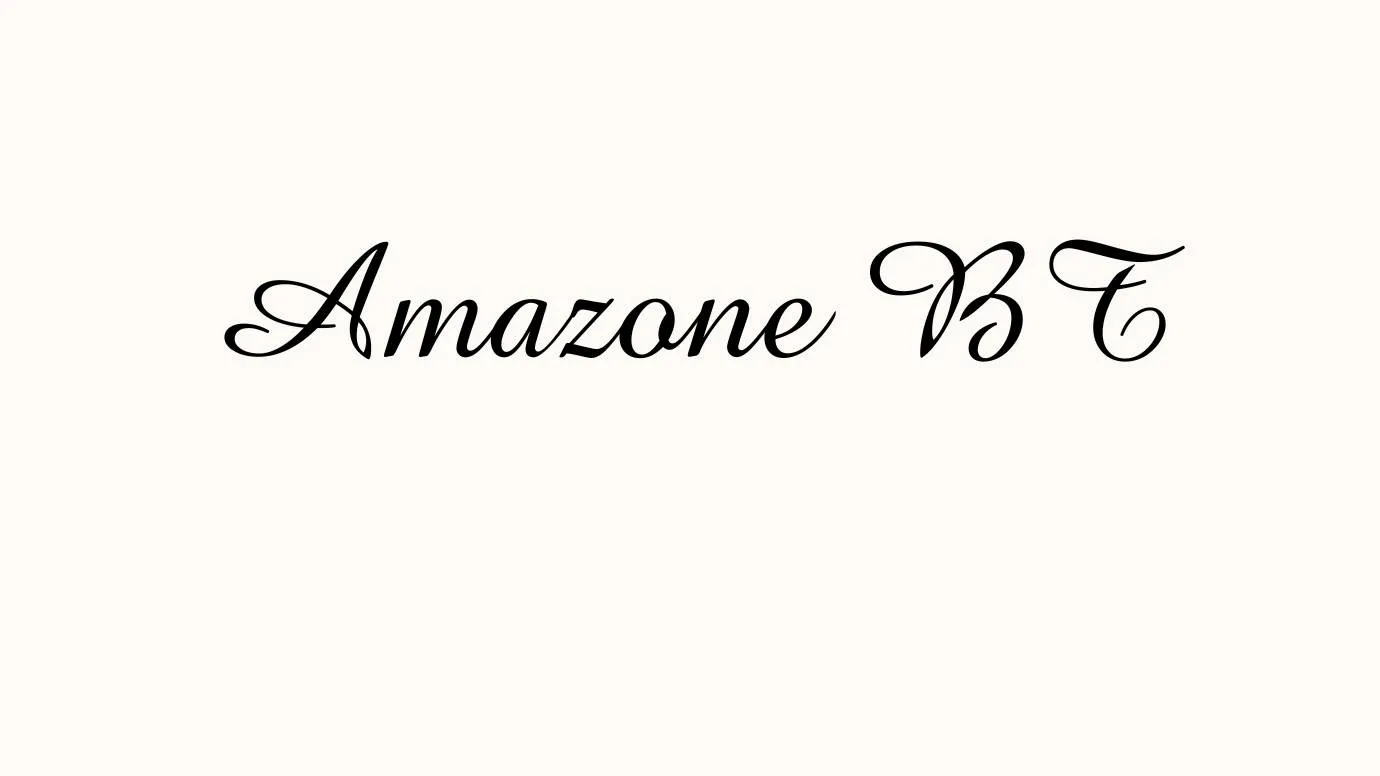
Amazone BT Font Family was creatively designed and released by Bitstream Inc. in 1993. Serving as the foundational font of the Amazone font family, it is available in a single regular style. It is widely recognized for its utility in product titles, branding, signatures, quotations, and innovative designs.
Furthermore, the font family provides 261 high-quality glyphs with 2048 units per em along with many stylistic alternates, texture ligatures, and swashes.